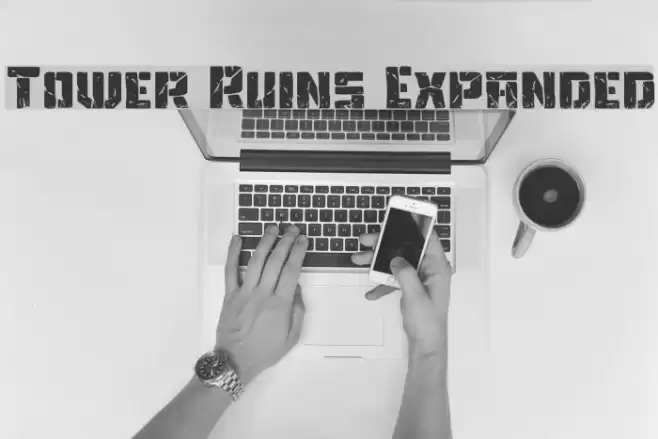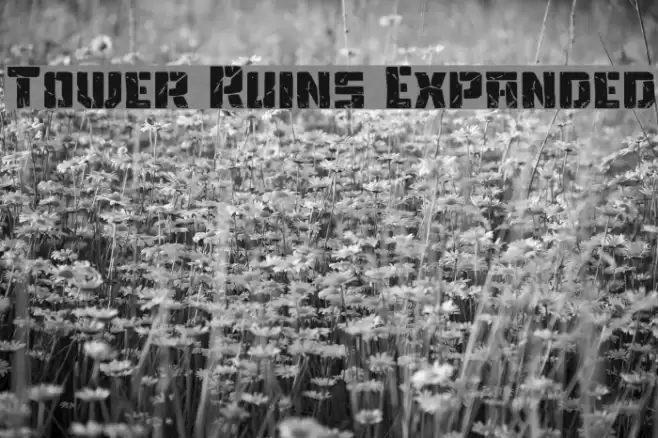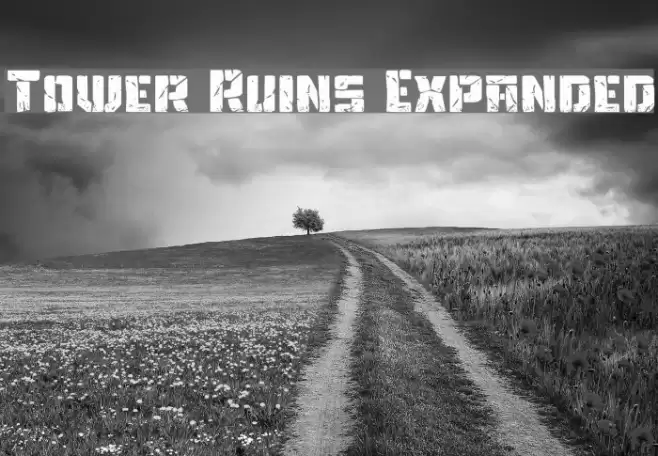
Tower Ruins Expanded Font
Tower Ruins Expanded Description
This font features a bold, distressed style with a rugged, textured appearance that mimics the look of weathered stone or concrete. The characters are blocky and geometric, with a consistent width that gives them a strong, impactful presence. The distressed effect is achieved through irregular, jagged edges and random speckles, creating a sense of decay and age. This design is ideal for projects that require a gritty, urban aesthetic, such as posters, album covers, or video game graphics. The uppercase and lowercase letters maintain a uniform style, while the numbers and special characters are equally bold and textured, ensuring a cohesive look across all text elements.
A bold, distressed font with a rugged, textured appearance from Fancy fonts.